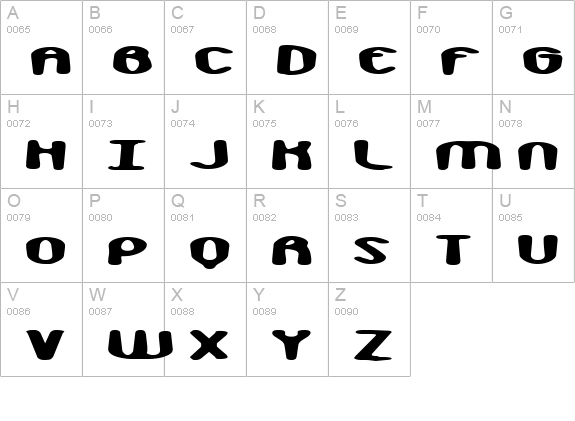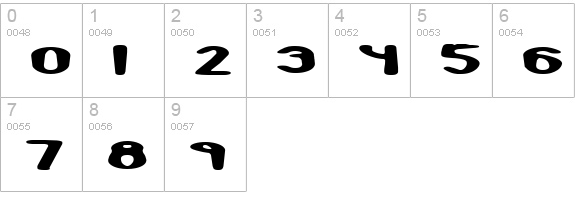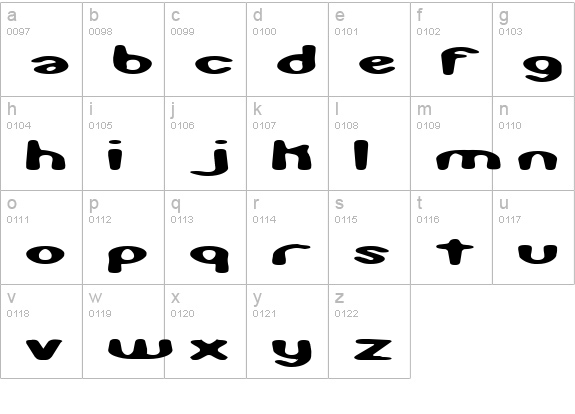
Monkey Phonics BRK Font Details
Monkey Phonics BRK font is a playful and whimsical typeface that is sure to add a touch of fun to any design project. With its quirky style and charming appeal, this font is perfect for creating eye-catching headlines, invitations, posters, and more. The unique letterforms of Monkey Phonics BRK font make it stand out from the crowd and give your designs a distinctive look. Best of all, Monkey Phonics BRK font is available for free download at FontsMarket.com. Whether you're a graphic designer looking for a new font to add to your collection or someone who just wants to add a touch of personality to their documents, Monkey Phonics BRK font is the perfect choice. Download it today and let your creativity run wild with this fun and funky typeface!